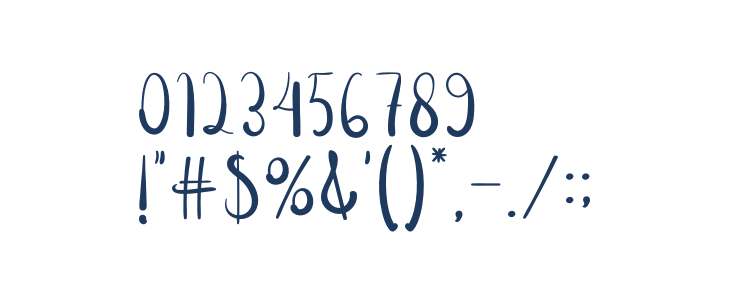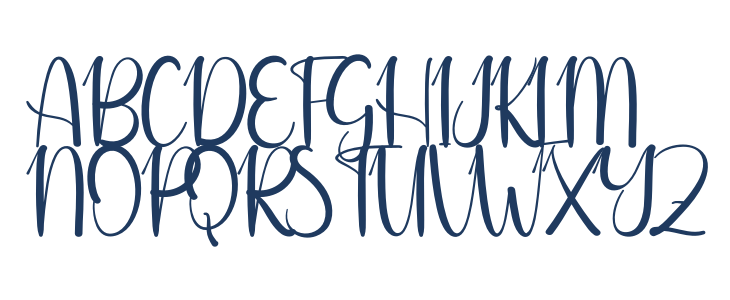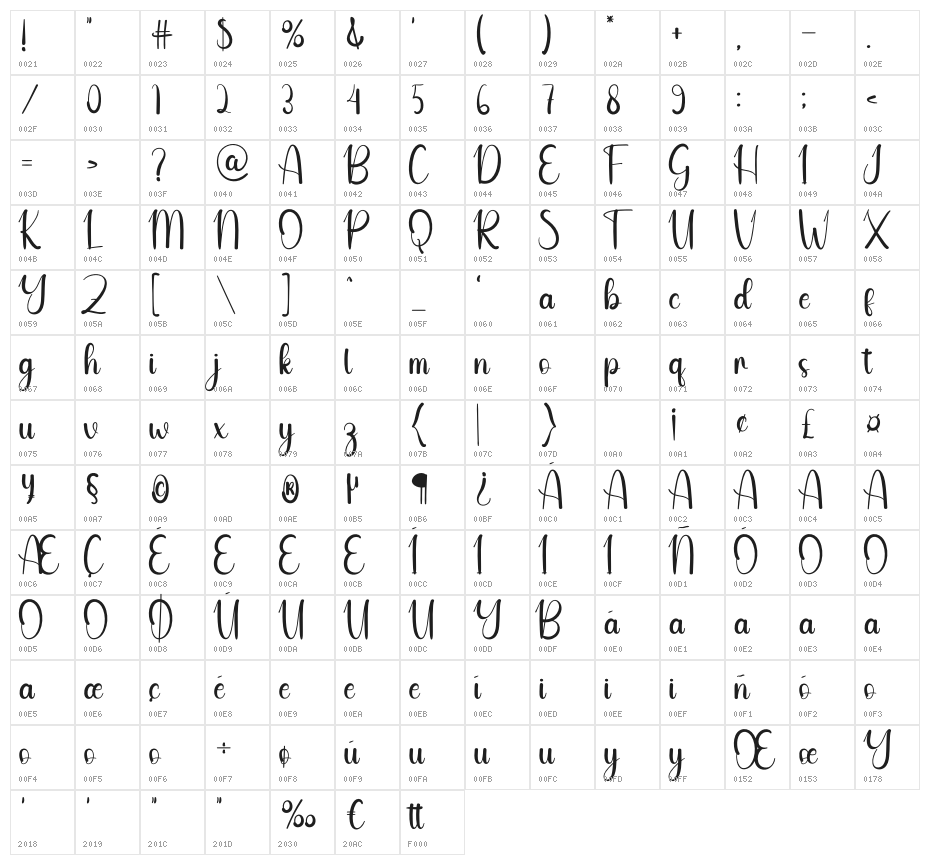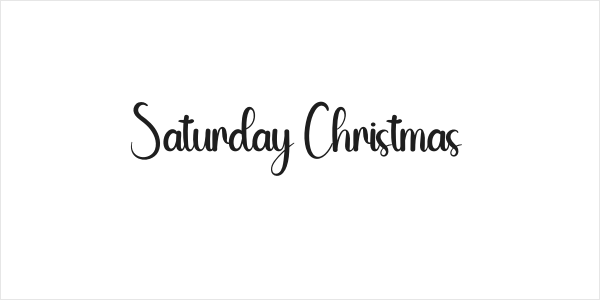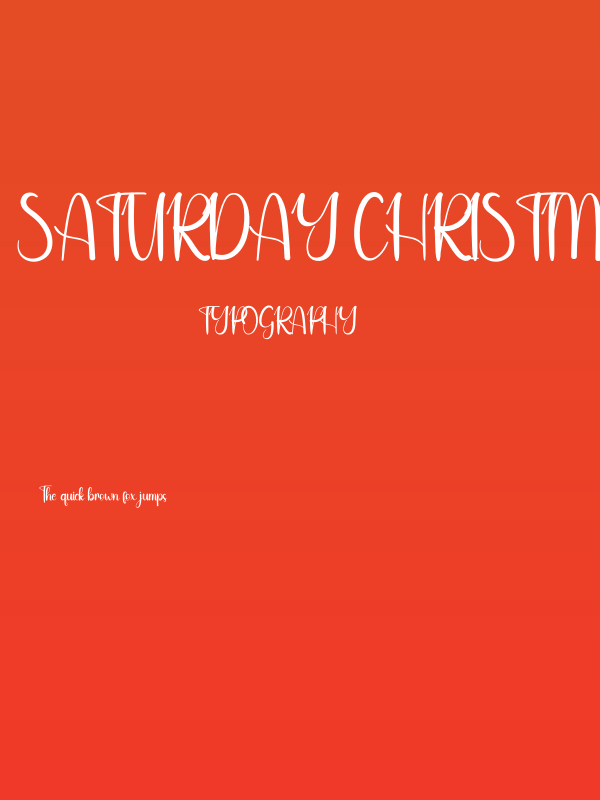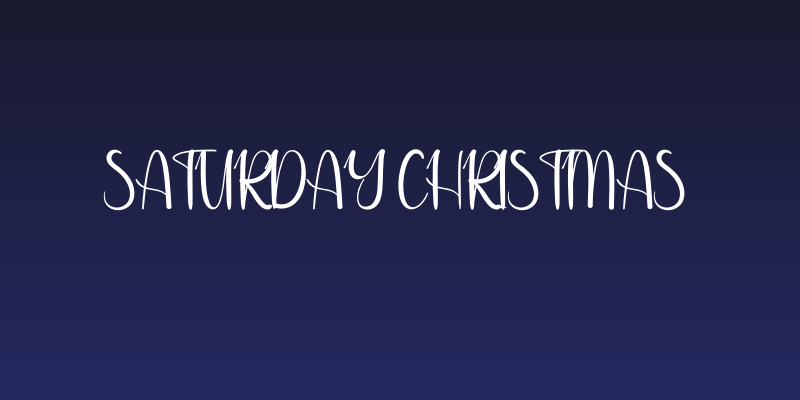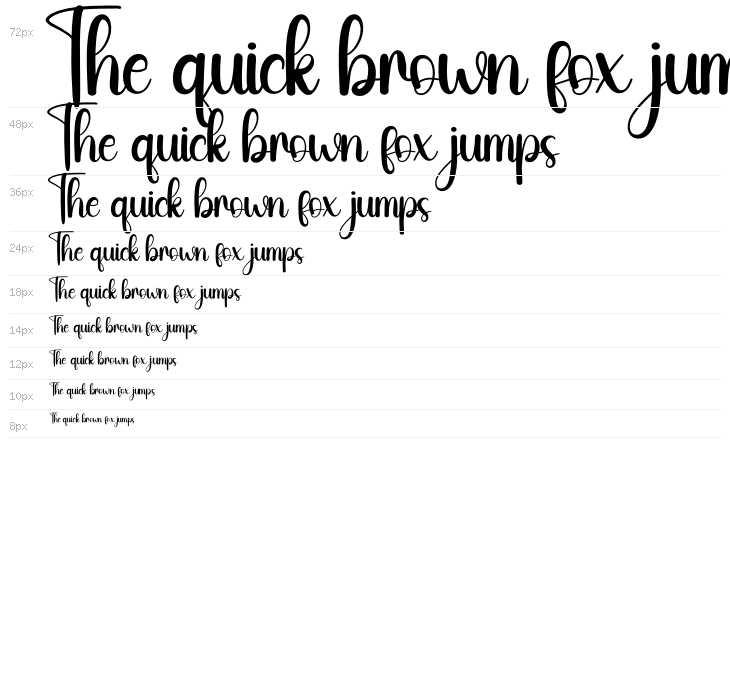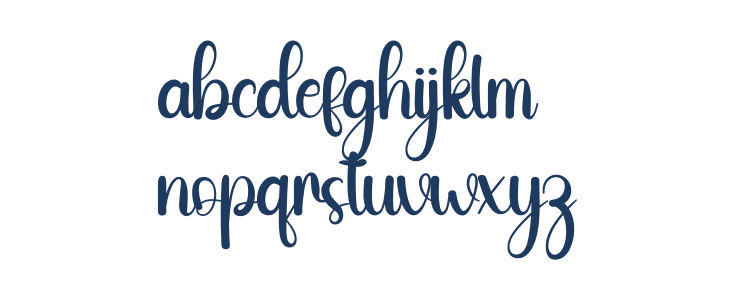
Saturday Christmas Font
Saturday Christmas Description
A playful, handwritten script font with tall, looping ascenders and descenders, featuring a casual and whimsical style. The strokes are moderately thick with slight variations, giving it a lively and friendly appearance. The characters are slightly condensed with generous spacing, and the overall look is informal yet legible.
| Overall Style | Decorative, Whimsical, Casual |
| Use Case | Headlines, Invitations, Greeting cards, Logos |
| Proposed Projects | Greeting cards, holiday invitations, posters, social media graphics, branding for creative businesses. |